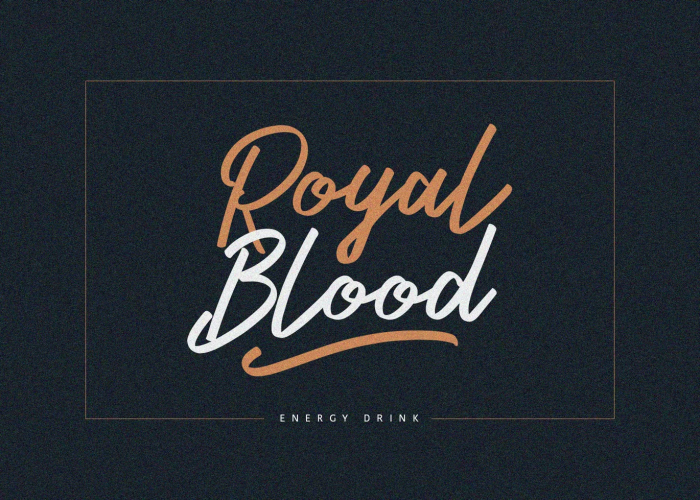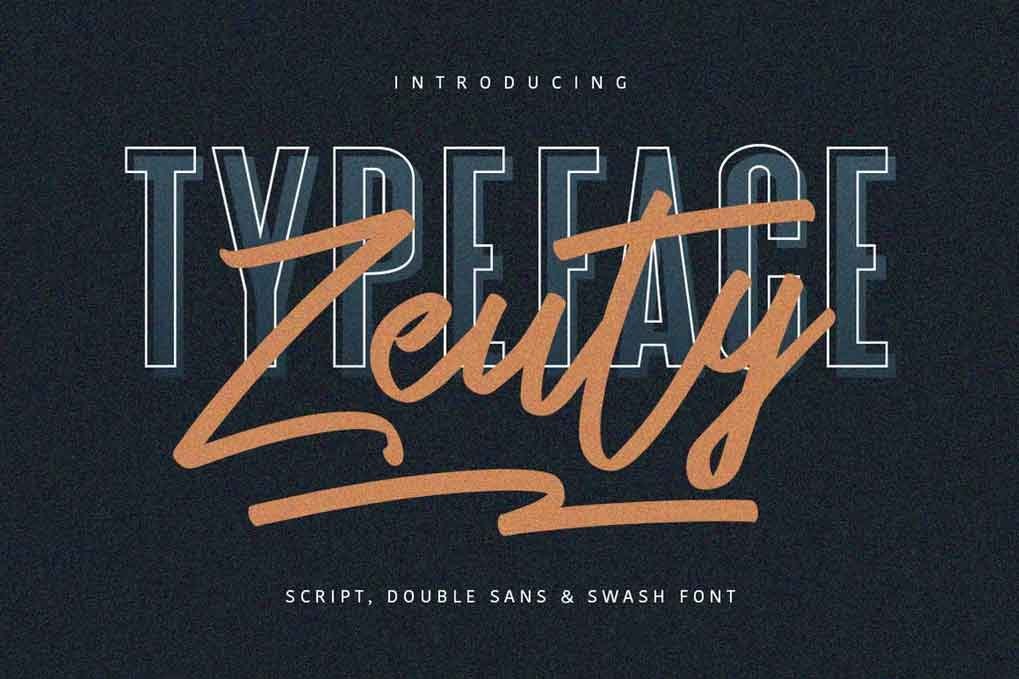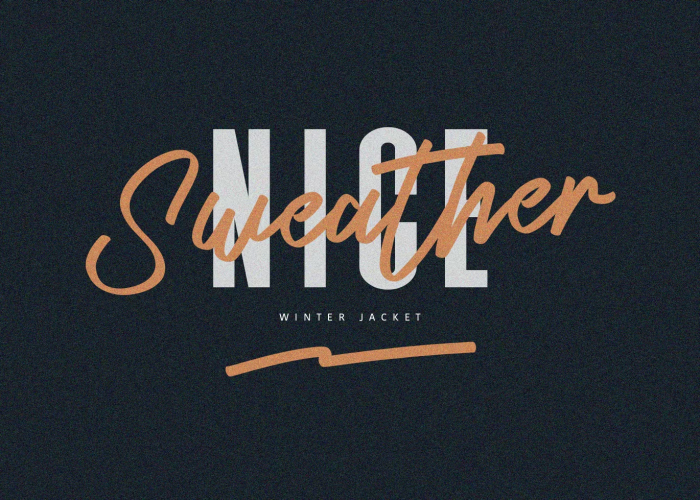
Zeuty Font Collection
Give your designs an authentic handcrafted feel. Zeuty Typeface Collection is perfectly suited to signature, stationery, logo, typography quotes, magazine or book cover,…
Give your designs an authentic handcrafted feel. Zeuty Typeface Collection is perfectly suited to signature, stationery, logo, typography quotes, magazine or book cover, website header, clothing, branding, packaging design and more.
Where Zeuty Font Collection works best
Zeuty Font Collection brings a personal, handwritten warmth to invitations, menus and place cards.
Craft brands — coffee, cosmetics, bakery — use scripts like Zeuty Font Collection for signature-style logos and labels.
Pair Zeuty Font Collection with a plain sans for quotes, stories and Pinterest pins that feel handmade.
What is Zeuty Font Collection good for?
Zeuty Font Collection is a Script And Handwritten typeface tagged Branding, Creative, Editorial, Packaging. It works well for headlines, logos, posters, social media graphics and branding projects that need a distinctive script and handwritten look.